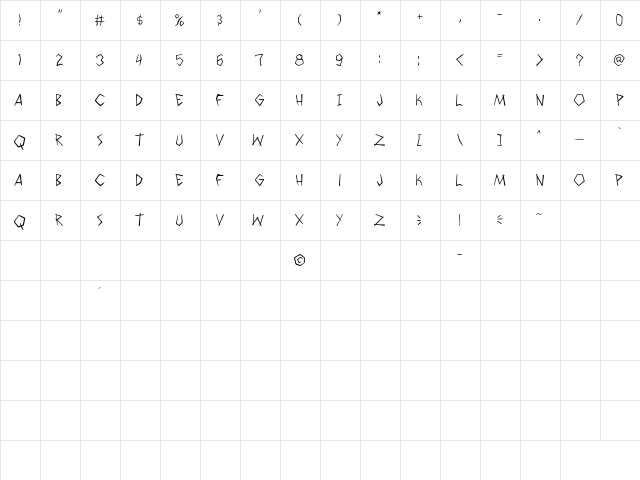
Wyld Savagez PG Regular
Design Context for Wyld Savagez PG Typeface
Wyld Savagez PG is a composed and adaptable typeface that performs quietly and consistently across a wide range of design contexts.